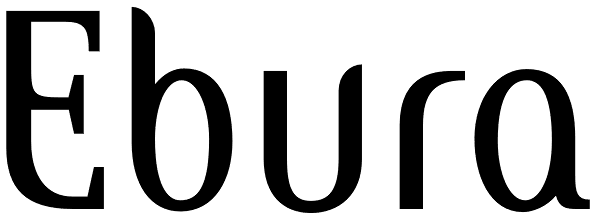
Ebura
Ebura is a funny and fashionable sansserif (or semi-serif?) type. Extended Latin, extended figures and SmallCaps are supported in OpenType. OpenType features: Ebura contains 740 Glyhps Standard Ligatures Discretionary Ligatures Denominators Ordinals...